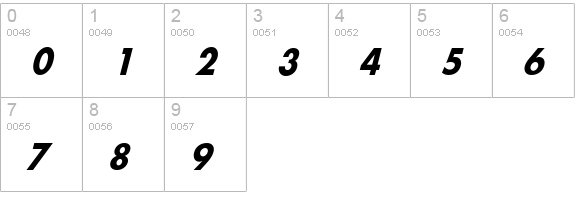
BelmarCndObl-Bo Font Details
BelmarCndObl-Bo is a modern and sleek font that exudes elegance and sophistication. With its condensed oblique design, this font is perfect for creating a professional and stylish look in your projects. The slanted characters add a unique touch to any design, making it stand out from the rest. What's even better is that BelmarCndObl-Bo is completely free to download at FontsMarket.com. You can easily access this font and enhance your designs without any cost. Whether you're working on branding materials, posters, or any other creative project, BelmarCndObl-Bo will elevate your work and give it a contemporary edge. Don't miss out on this opportunity to add BelmarCndObl-Bo to your font collection for free. Download it today and start creating stunning designs that leave a lasting impression.